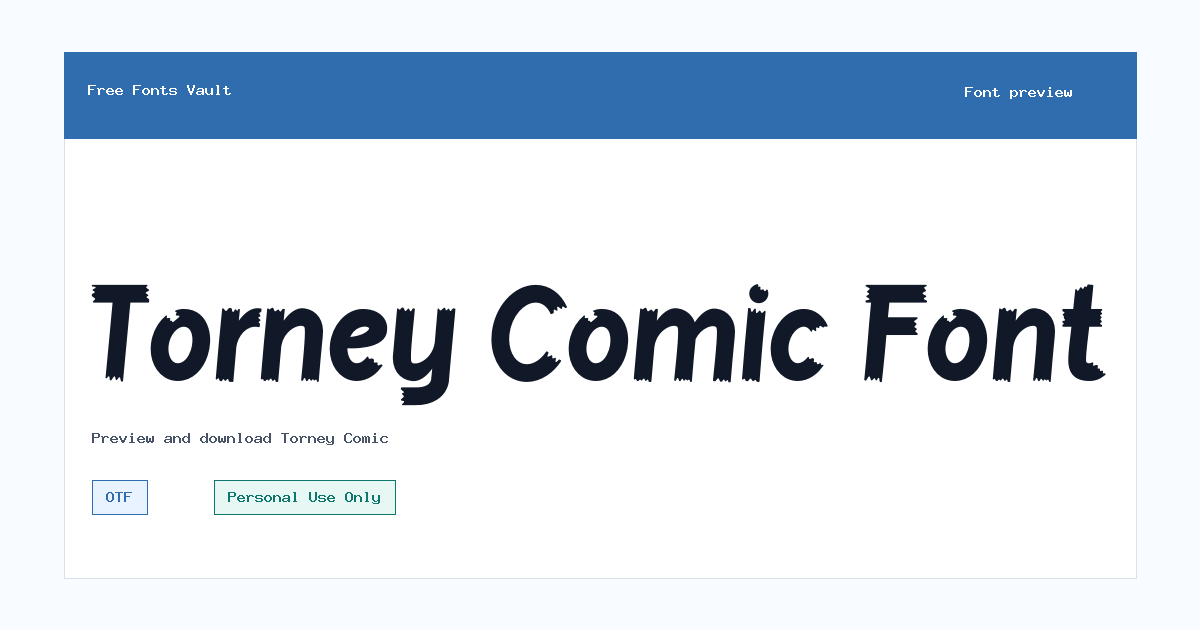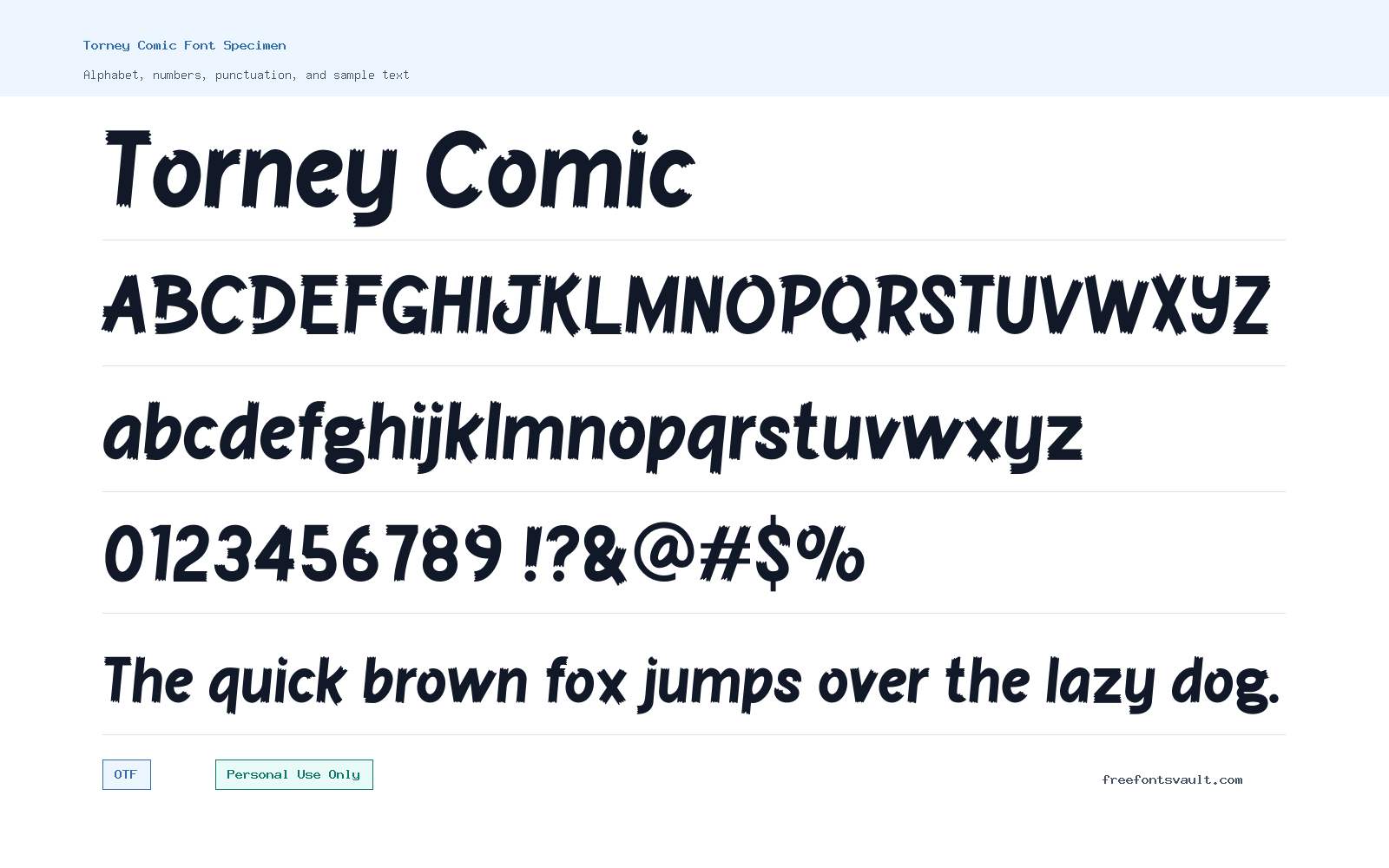
Torney Comic
Torney Comic Font
• Designer Febrie Setiawan
Torney Comic is a playful display font with a comic-inspired feel, made for short, expressive text rather than long reading. It works best when you want a casual headline, a fun title, or a bold wordmark-style preview that feels friendly and informal.
About Torney Comic Font
Torney Comic has the kind of personality suggested by its name: light, cartoon-like, and built for attention. Use it where the text can be large enough for the letter shapes to show clearly, such as posters, stickers, kids’ project graphics, social media images, party invitations, comic-style captions, or playful branding drafts. It is not a neutral body-text font, so it will usually feel strongest in headlines, labels, and short phrases.
• Comic-style display personality suited to short titles, captions, and playful graphics.
• Fun headlines, comic-style captions, stickers, posters, and social media graphics.
• Personal design mockups, school projects, party materials, and playful title treatments.
Torney Comic is credited to Febrie Setiawan. No foundry name is listed for this font page.
For the best result, use Torney Comic in short bursts: one headline, a few words, or a compact label. Keep enough contrast between the text and background, and avoid using it for paragraphs or small interface text. Pair it with a simple sans serif if you need supporting copy, because a quieter companion font will let the comic-style title stay readable and fun.
What kind of font is Torney Comic?
Torney Comic is a comic-inspired display font. It is best for short, playful text such as titles, captions, posters, stickers, and social media graphics.
Is Torney Comic good for body text?
It is better for display text than body copy. Use it for larger words or short phrases, and choose a simpler font for paragraphs or detailed reading.